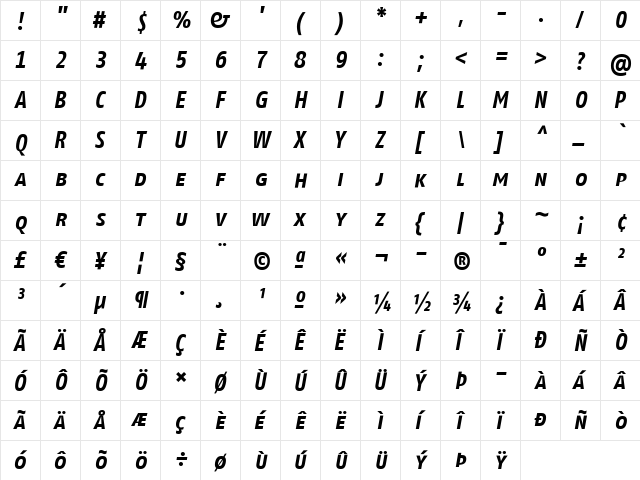
FagoCoTf ItalicBold Font Preview
FagoCoTf ItalicBold
FagoCoTf is a composed and adaptable typeface that performs quietly and consistently across a wide range of design contexts. The slanted form adds forward momentum and visual energy. Its bold stroke weight gives it real presence on the page.